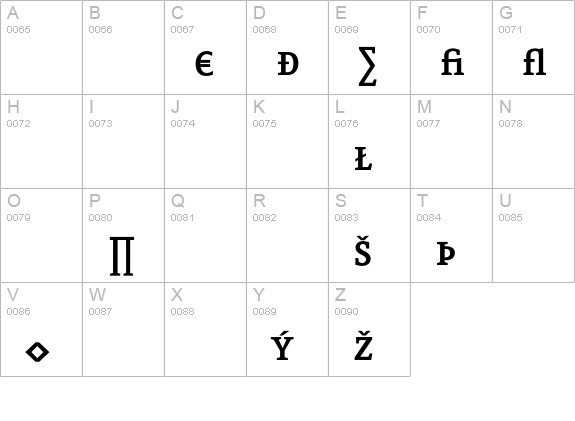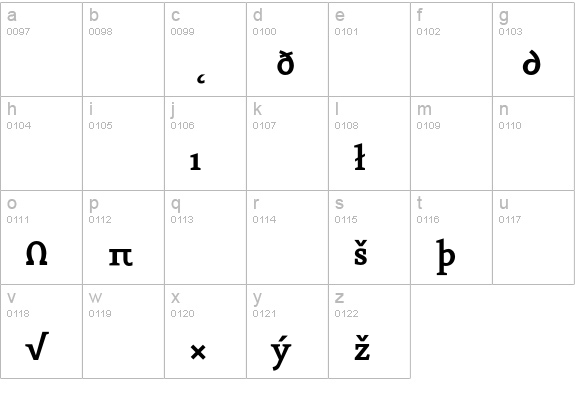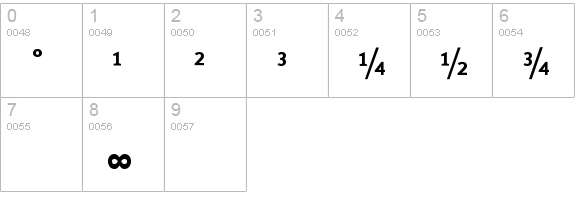
Eureka Bold Exp is a strong, high-contrast variant in the Eureka typeface family \xE2\x80\x94 well suited to headlines, attention-grabbing titles, and strong calls-to-action.
Eureka Bold Exp font is a striking and powerful typeface that demands attention with its bold and expanded design. Its sharp edges and strong lines make it perfect for creating eye-catching headlines, titles, and logos. Eureka Bold Exp exudes a sense of confidence and modernity, making it ideal for projects that require a bold statement. The best part is that Eureka Bold Exp font is available for free download at FontsMarket.com. This means you can easily access this impressive font and incorporate it into your design projects without any cost. Whether you're working on a branding project, poster design, or any other creative endeavor, Eureka Bold Exp font is a versatile choice that will add a touch of boldness and sophistication to your work.